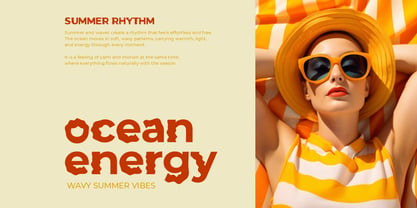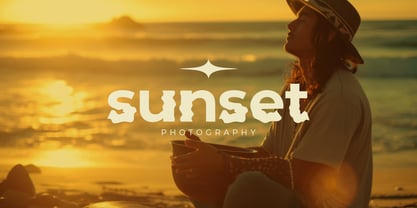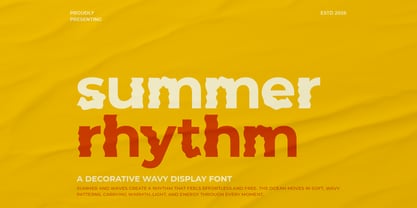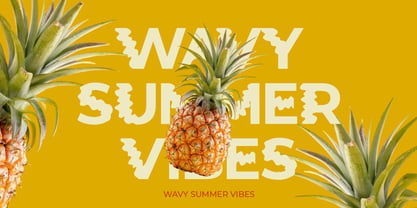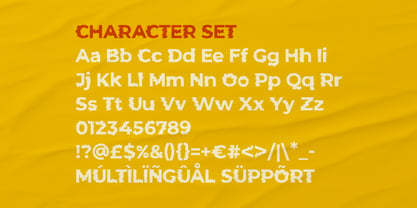
Summer Rhythm
by Shanaf
The Summer Rhythm Font Family was designed by Yesie Erma Yunita and published by Shanaf. Summer Rhythm contains 1 styles. More about this family
Summer Rhythm Wave Font captures the relaxed energy of coastal days and warm evenings. Each letter uses bold rounded forms with playful wave cut edges that feel fluid and moving. The strokes stay thick and readable, while the uneven contours add rhythm and handcrafted charm. This display font feels cheerful, fresh, and expressive with a retro modern touch. It works strongly for logos that need fun personality and instant attention. Summer Rhythm Wave Font suits beach cafés, juice bars, tropical food brands, travel businesses, and summer product packaging. Use it when your brand needs a sunny mood, ocean spirit, and memorable presence. The letter structure stands wide and sturdy, making headlines clear from distance. Soft curves balance the decorative edges, so words feel lively without losing legibility. This font performs well on posters, branding kits, labels, stickers, invitations, greeting cards, magazine covers, and book titles. It also fits photography titles, resort campaigns, party flyers, festival banners, and social media graphics. The playful wave styling supports themes like ocean travel, pineapple products, beach markets, surf shops, and sunset promotions. Use uppercase for bold impact or lowercase for casual charm. Every line feels warm, energetic, and ready for seasonal campaigns.